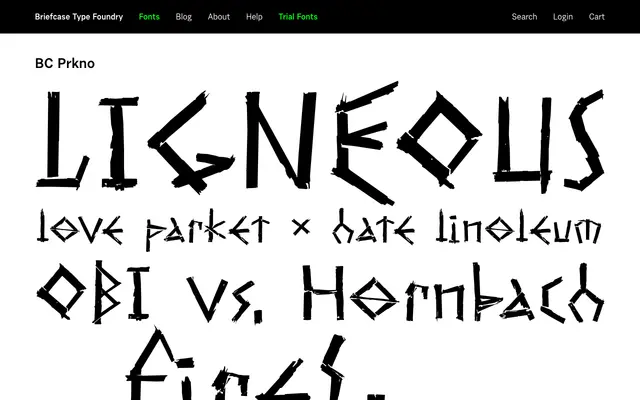
A sans-serif typeface from Briefcase Type Foundry with limited information available from the scraped page.
BC Prkno is part of Briefcase Type Foundry's catalogue, a Czech foundry known for producing disciplined, professionally finished type. The page returned insufficient detail to characterise its specific design approach, weight range or script coverage. Further inspection of the foundry's full specimen is recommended before use in a project.
Briefcase Type Foundry's naming conventions and portfolio suggest a sans-serif grotesque tradition; insufficient page content to refine further.